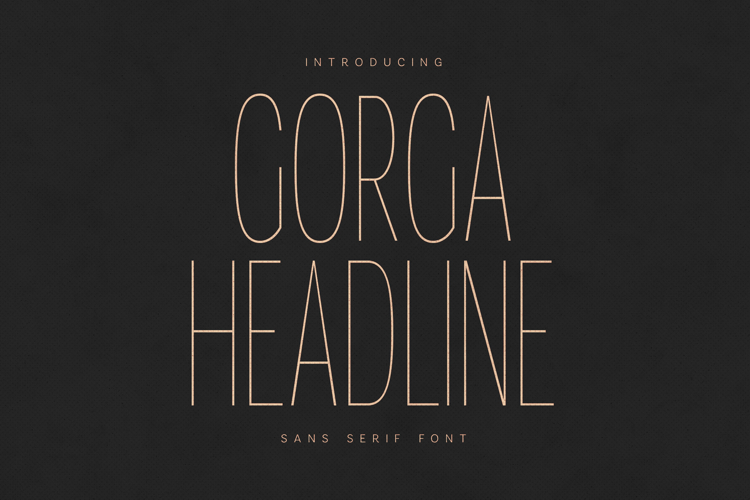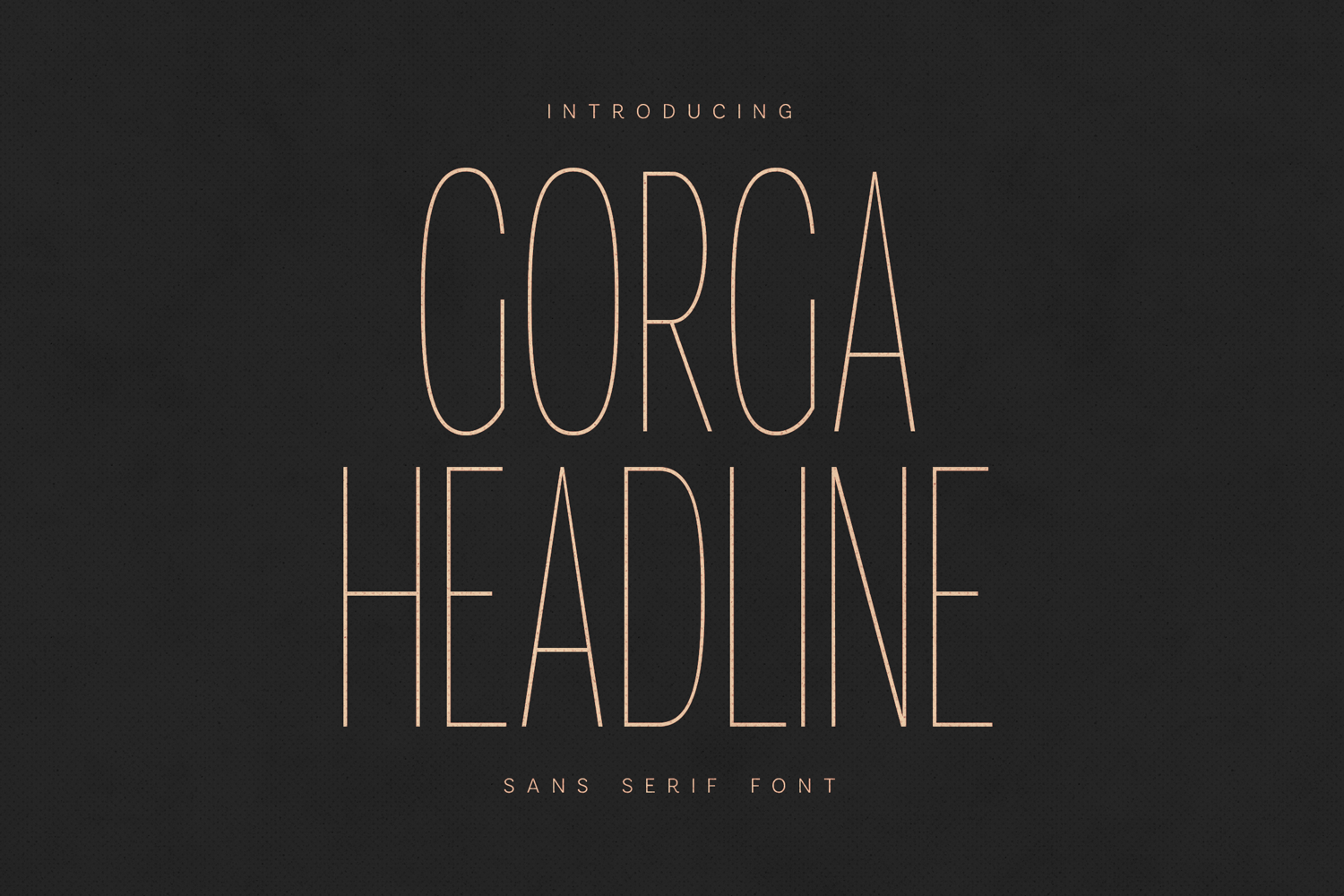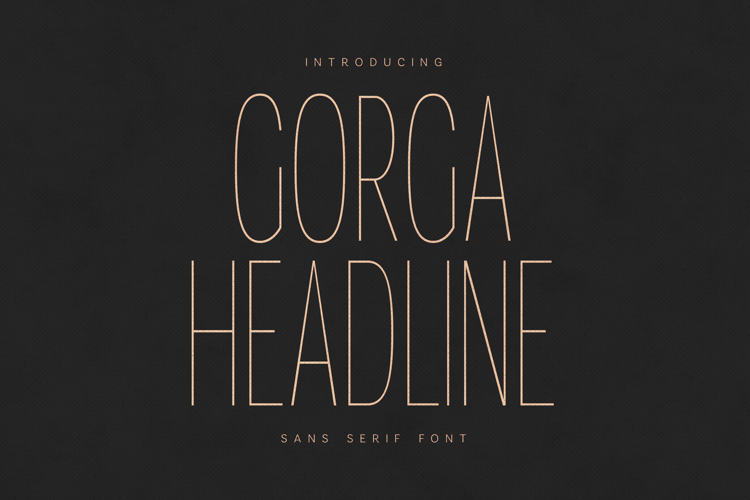
Gorga Headline Modern Sans Serif Font
Gorga Headline is a modern sans serif font designed for strong visual impact and clean readability. With its tall proportions, elegant lines, and minimalist structure, this typeface is ideal for headlines, editorial layouts, branding, and contemporary design projects.
Crafted for clarity and sophistication, Gorga Headline works beautifully across fashion, lifestyle, magazine design, logos, packaging, and professional branding systems. Its refined simplicity makes it a versatile choice for both bold statements and subtle typographic compositions.